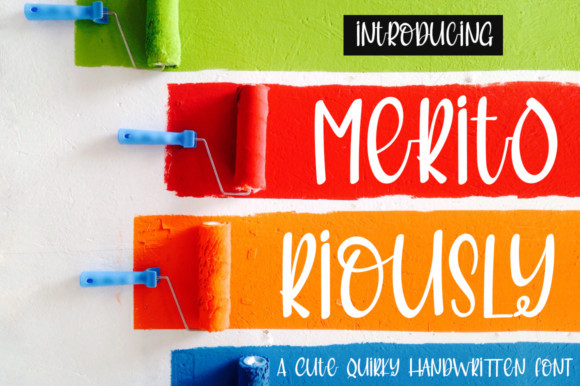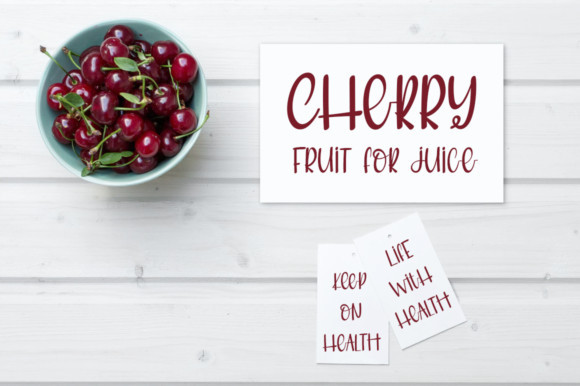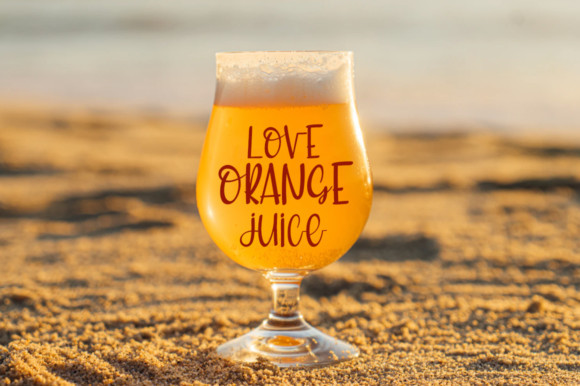
Meritoriously Font
Meritoriously is a quirky and authentic handwritten font that will turn any design project into a true standout. Get inspired by its authentic charm!